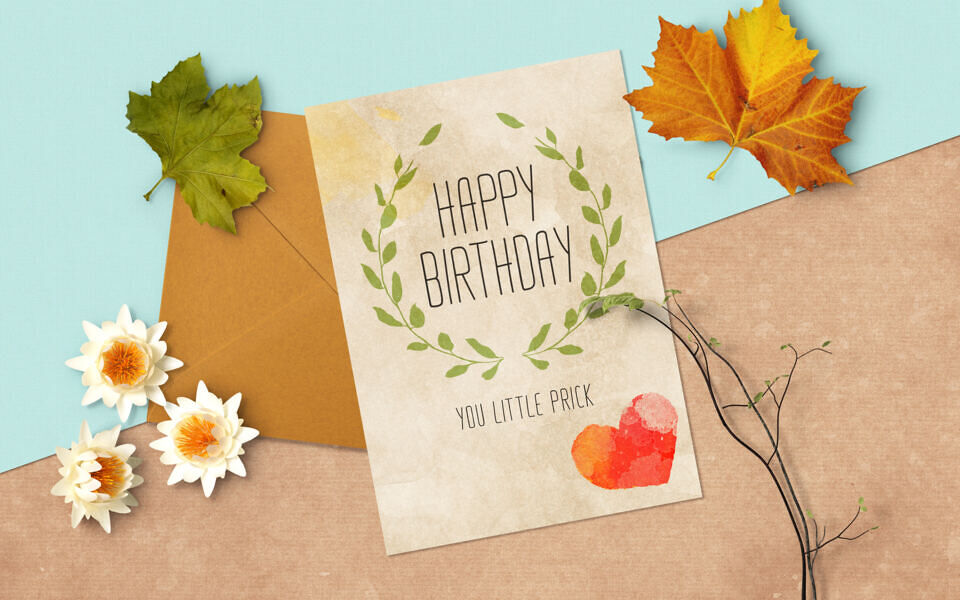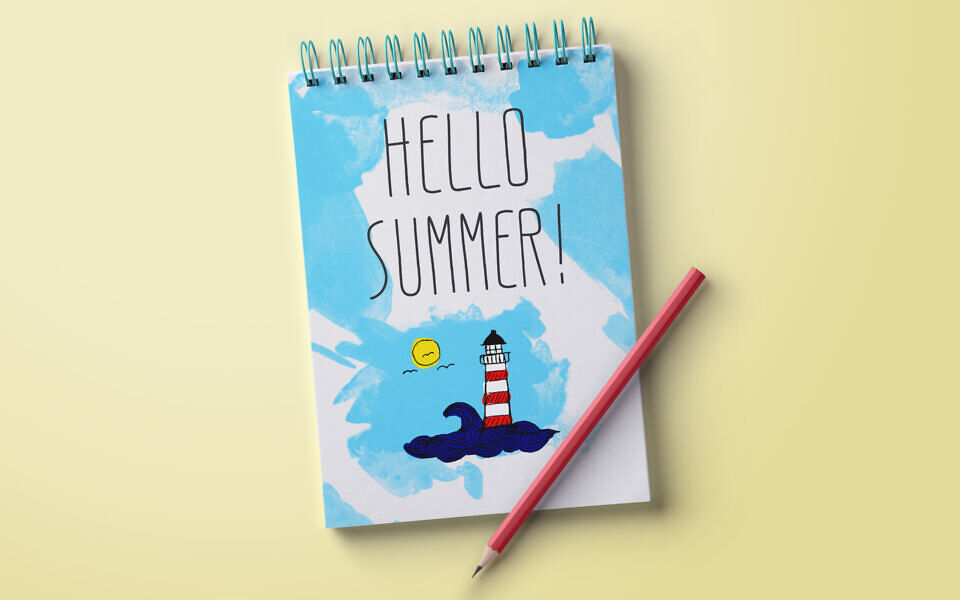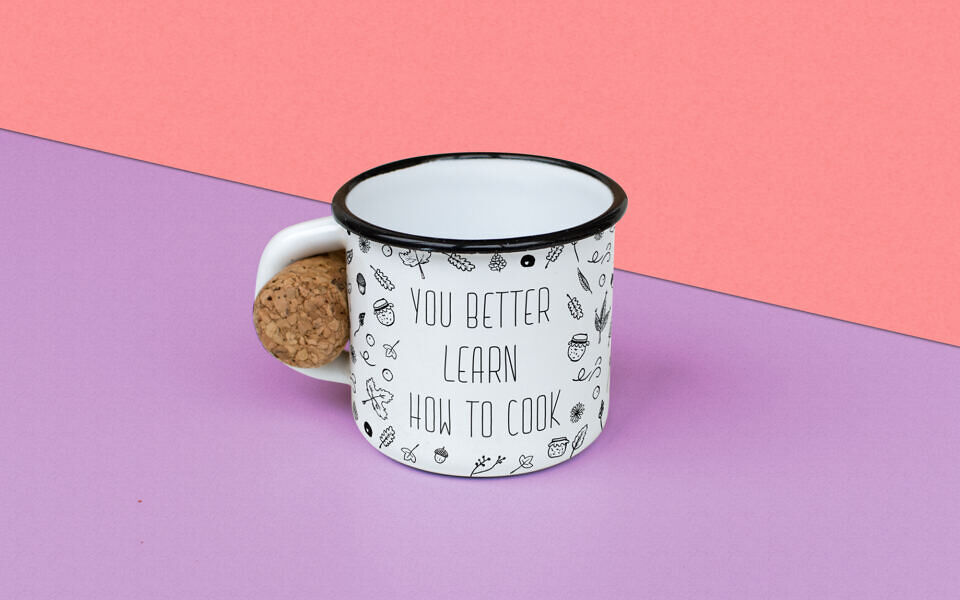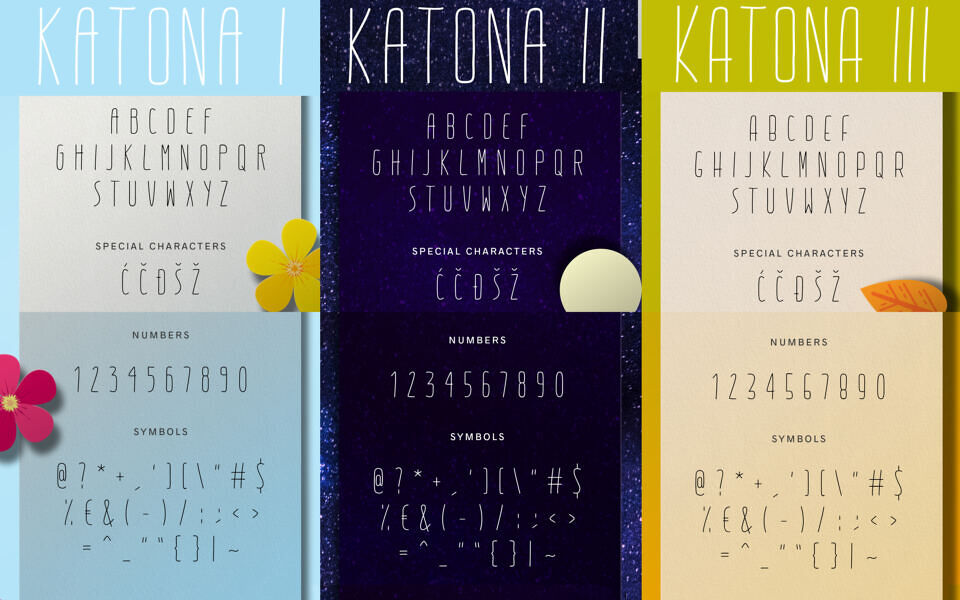
Designed by Tamara Vukich, Katona is a charming and cute, thin handwritten font with various characters, numbers, and symbols. Suitable for posters, letters, and covers, it’s available in three versions: Katona I, II, and III, offering an ultra-light, condensed style for diverse projects.